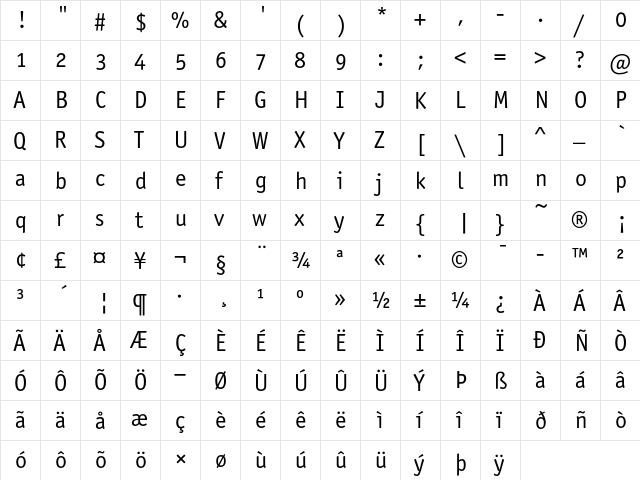
Officina Sans ITC Book OS
Design Context for Officina Sans ITC Typeface
Officina Sans ITC offers clean, dependable letterforms without strong stylistic allegiance, making it a practical choice for designers who need flexibility.